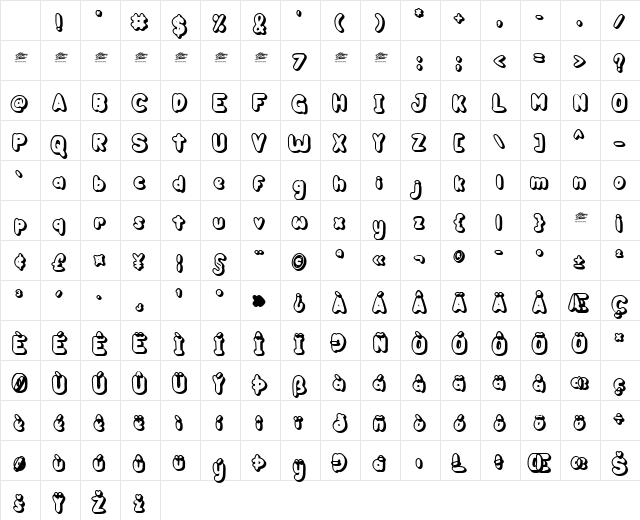
Complete Ginger Biscuit Extrude - PUL Regular glyph index. Displaying only characters natively supported by Ginger Biscuit Extrude - PUL Regular font.
Ginger Biscuit Extrude - PUL is a composed and adaptable typeface that performs quietly and consistently across a wide range of design contexts.